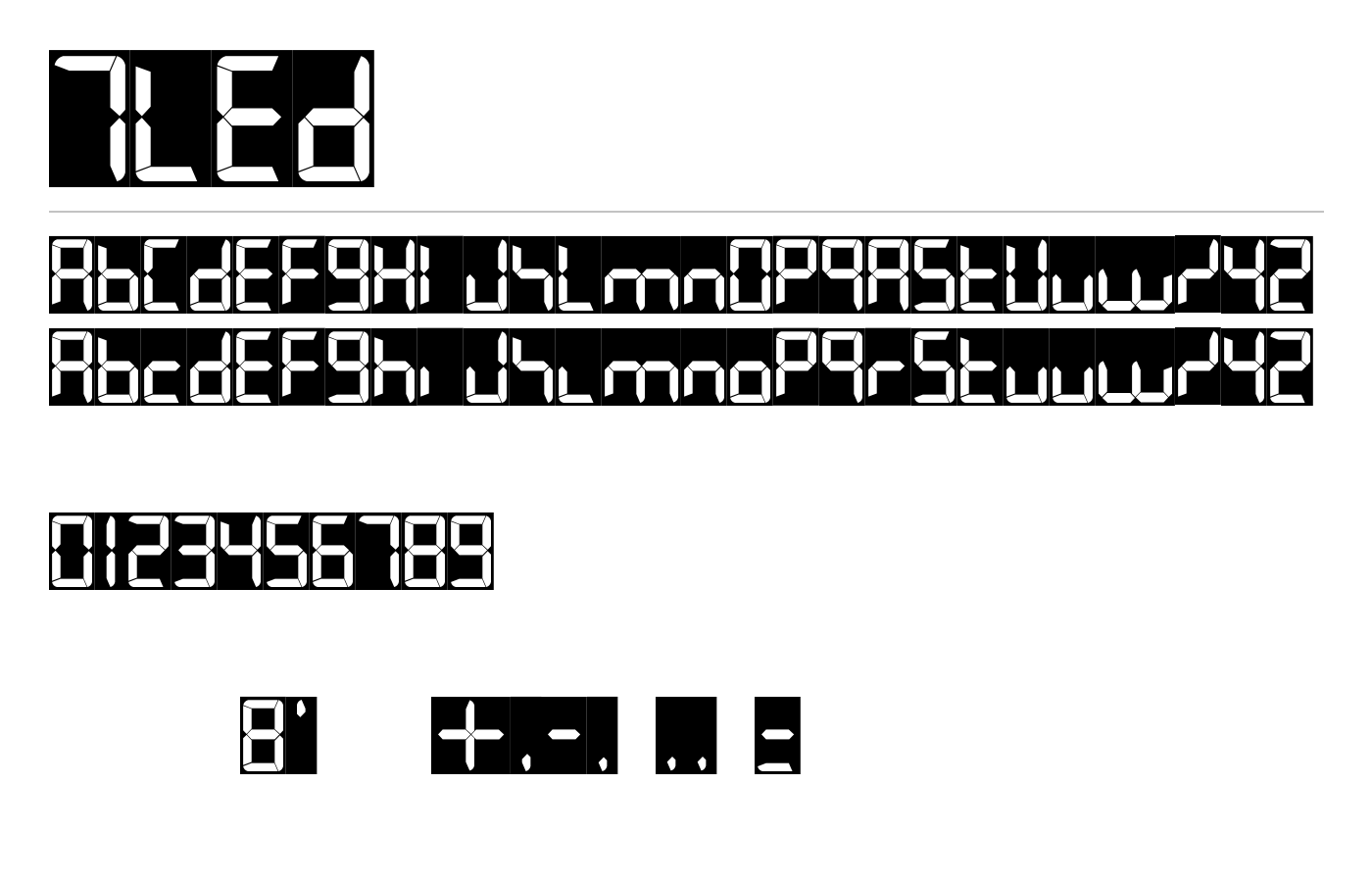
7LED is a distinctive sans serif font designed to mimic the segmented style of classic digital LED displays, featuring a geometric, monospaced structure with evenly spaced, angular strokes. Its clean, modern, and tech-inspired look makes it ideal for digital interfaces, tech branding, and retro-futuristic designs where readability and a digital vibe are key. This font works best in headlines or display contexts that benefit from its unique, digital character.
7LED Font
About 7LED Font